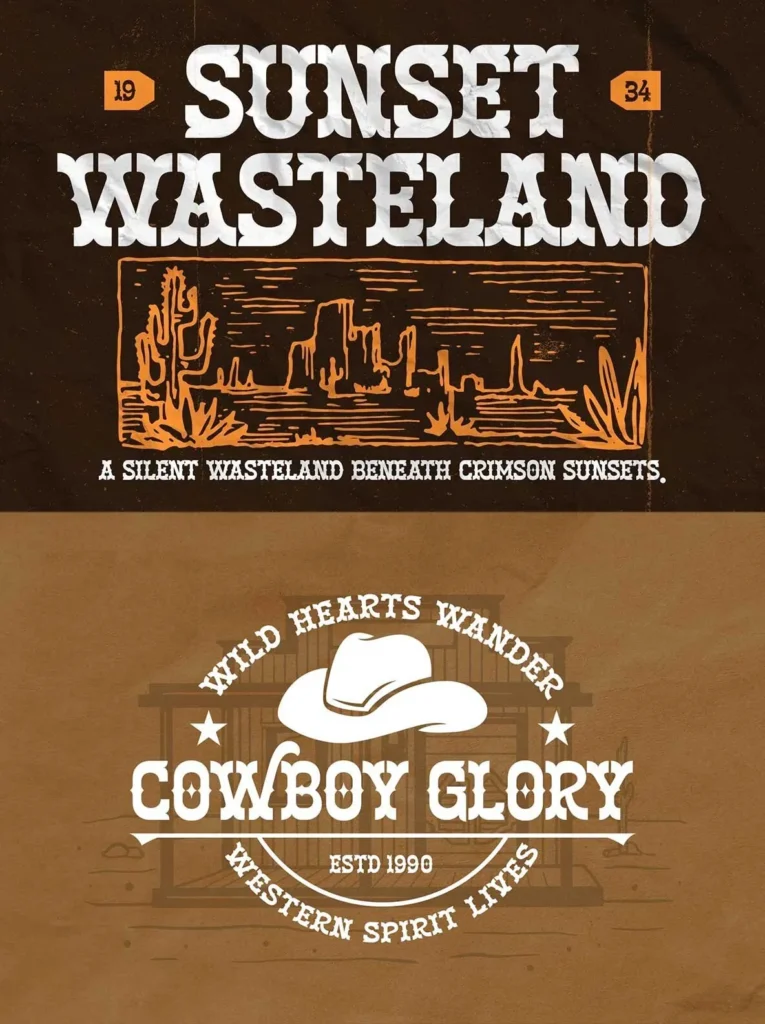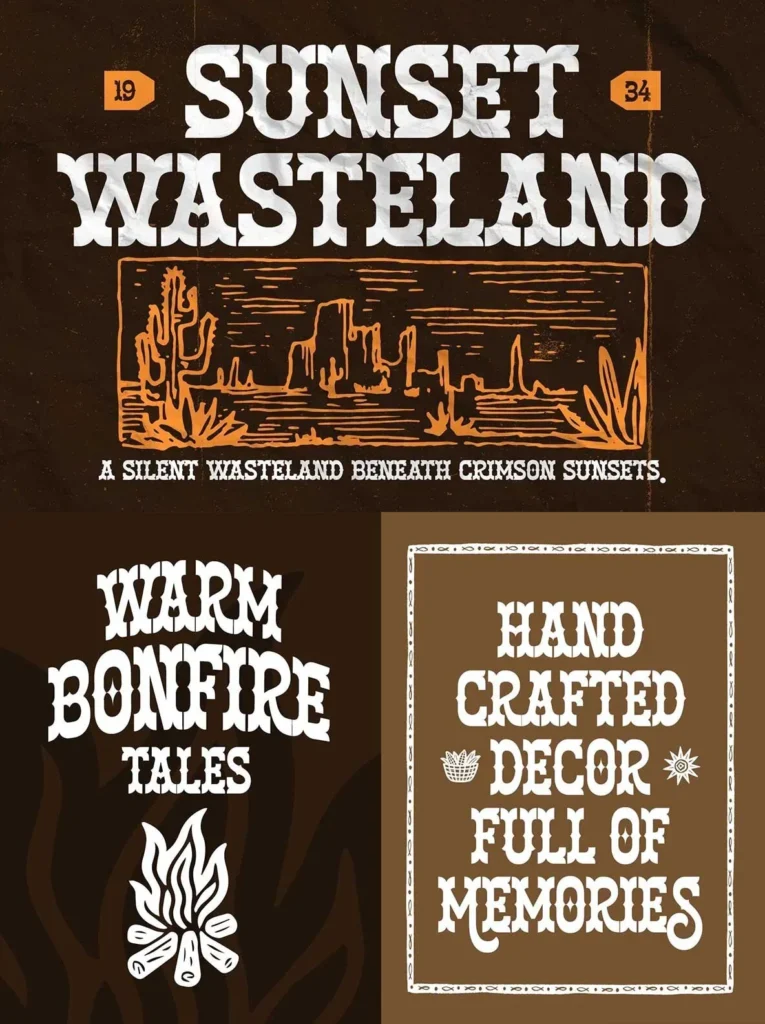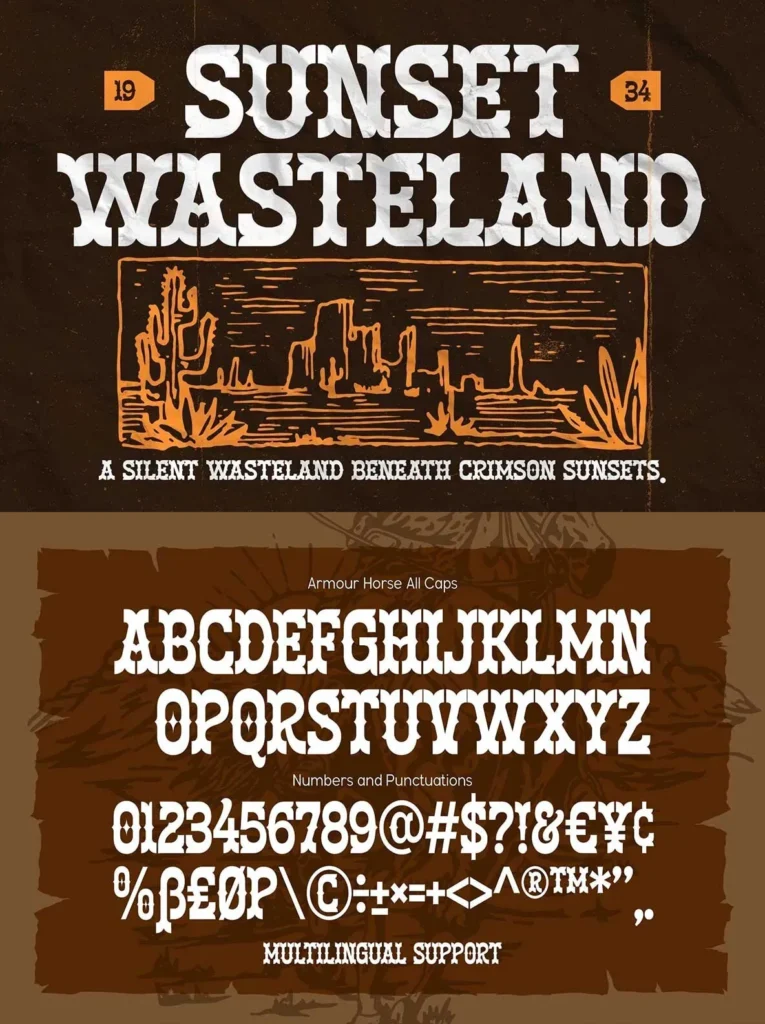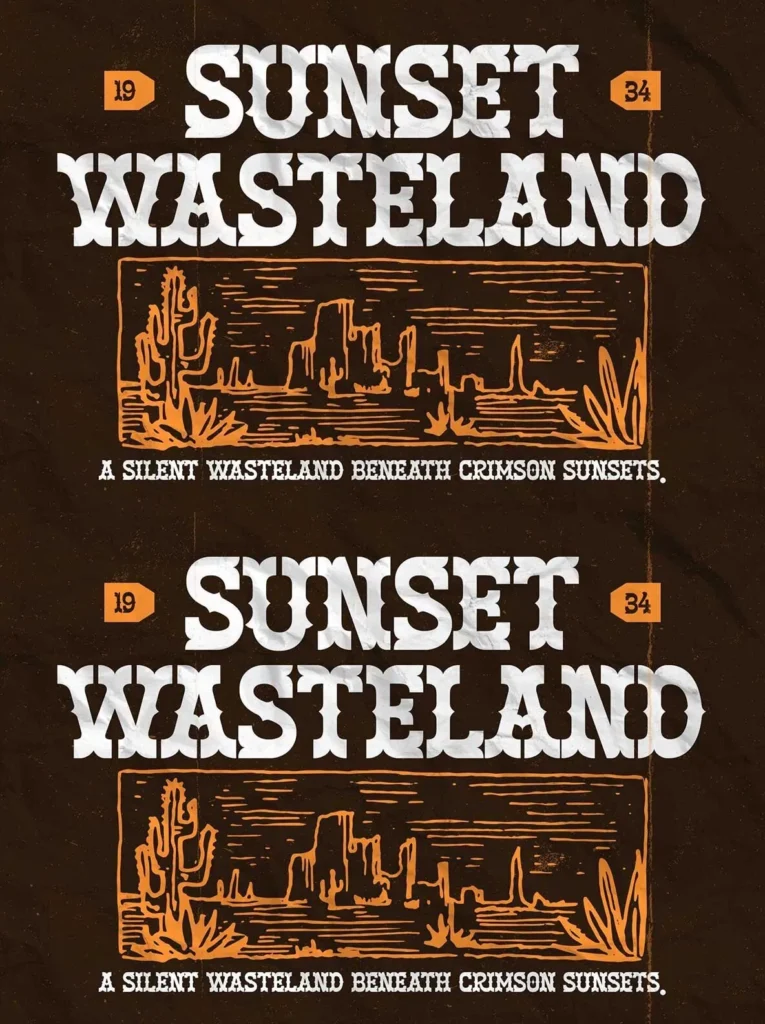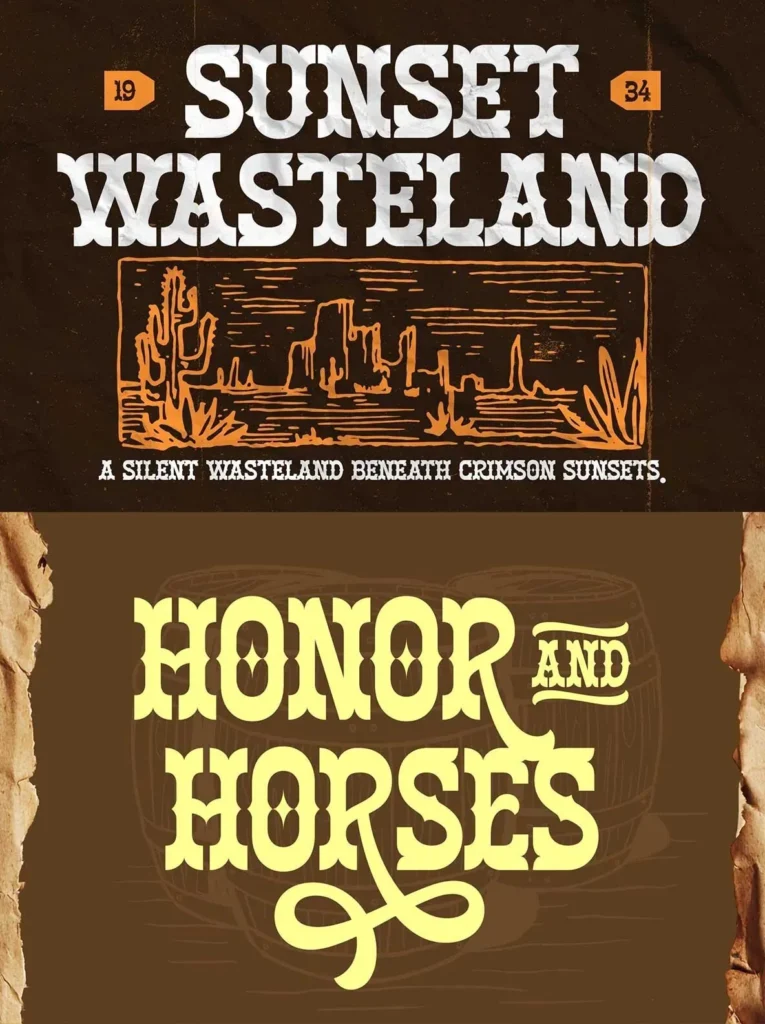
Armour Horse — Spurs for Bold Western Work
Armour Horse is a bold western display typeface inspired by cowboy culture, rodeo traditions, frontier towns, and vintage wood-type lettering. Built on strong serif foundations, with decorative spurs and distinctive reverse-contrast details, it carries an authentic Wild West character while maintaining excellent readability.
Its rugged yet elegant appearance makes Armour Horse well suited for eye-catching headlines, vintage logos, labels, ranch branding, packaging, posters, apparel, signage, and other western-themed designs. Designed for broad creative flexibility, it includes stylistic alternates, discretionary ligatures, decorative catchwords, multilingual support, numbers, and punctuation. Use it for a rustic brand identity, an old-town saloon poster, or a premium handcrafted product label. Armour Horse gives typography a timeless, adventurous feel, full of frontier spirit, with a bold, memorable, and unmistakably western voice.